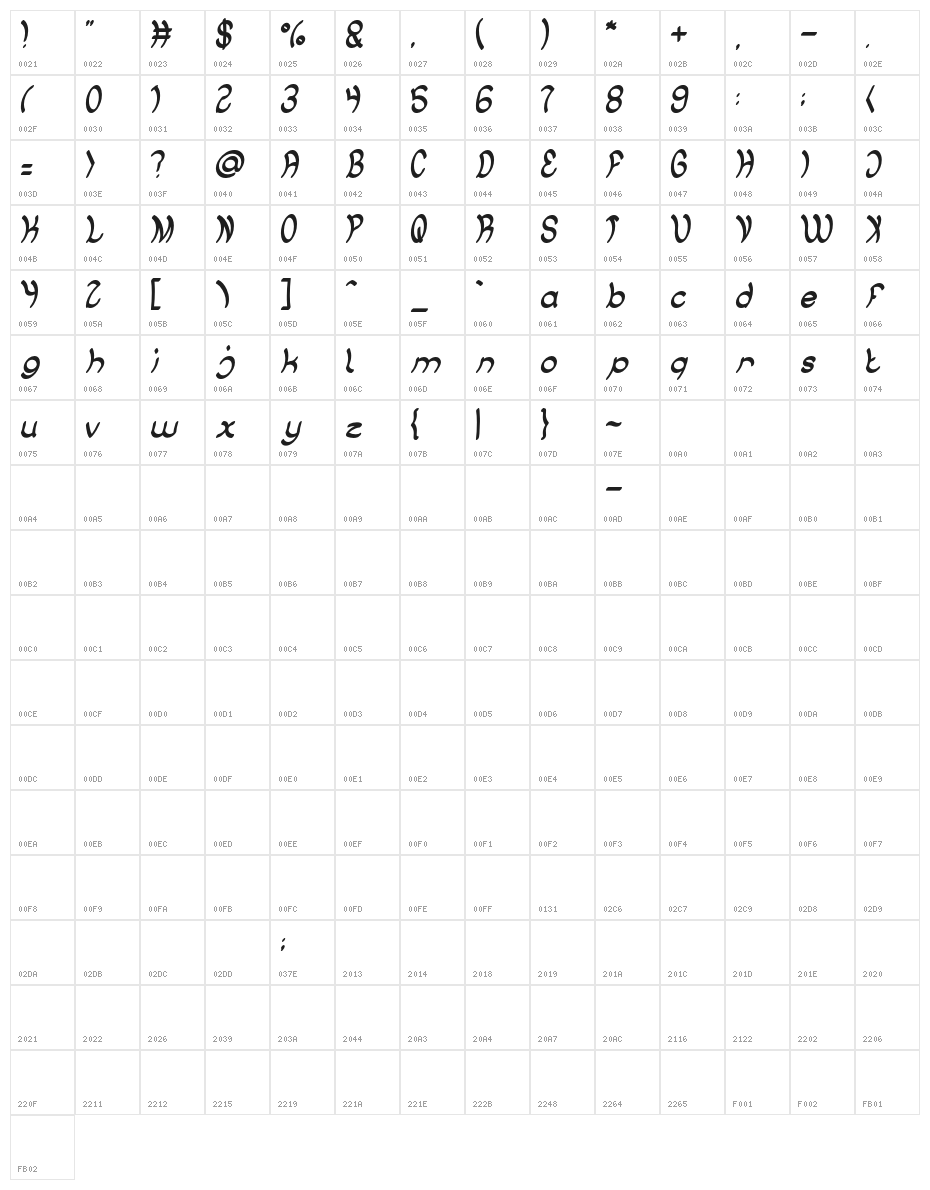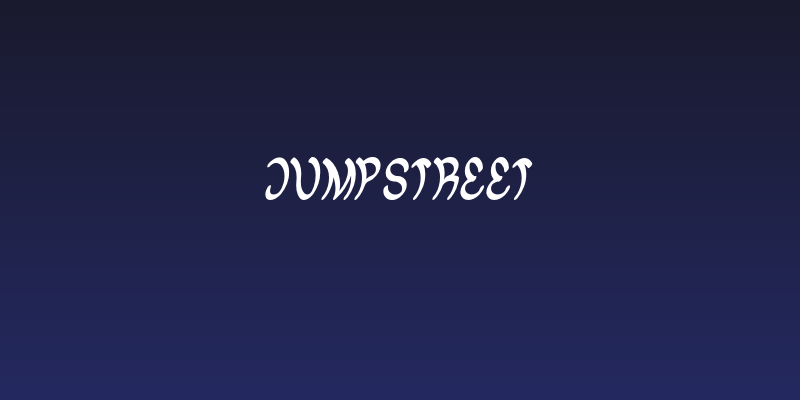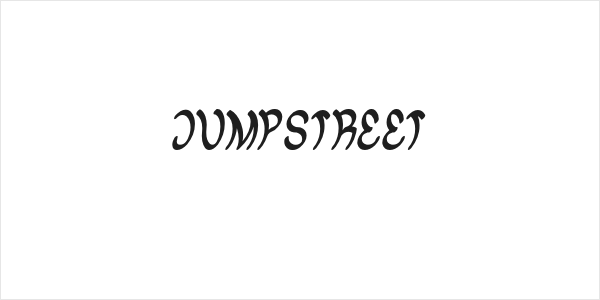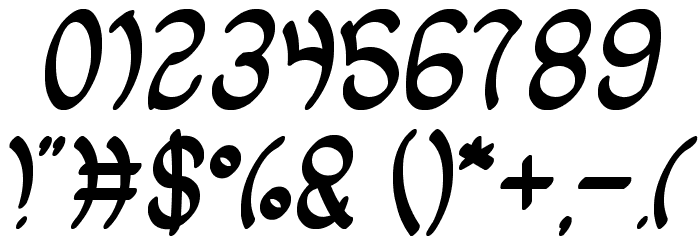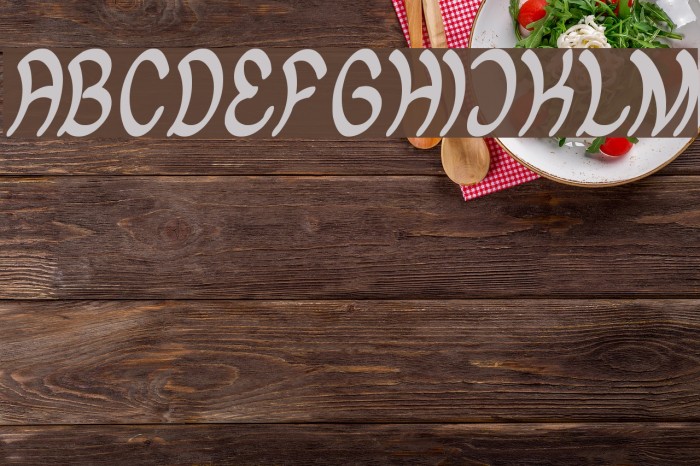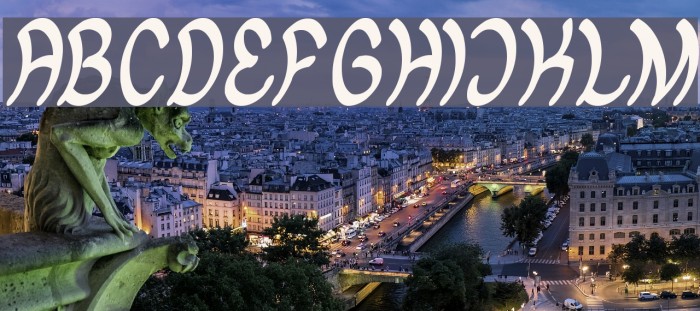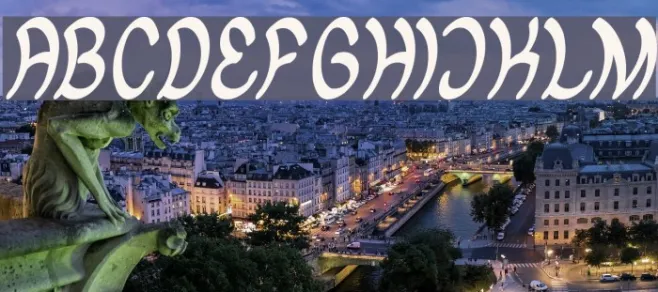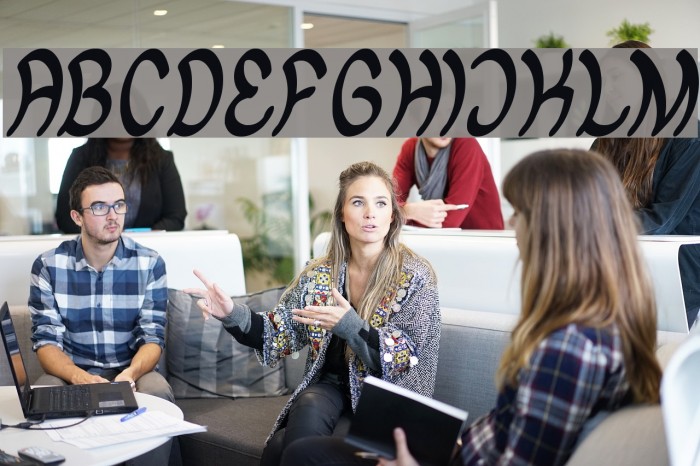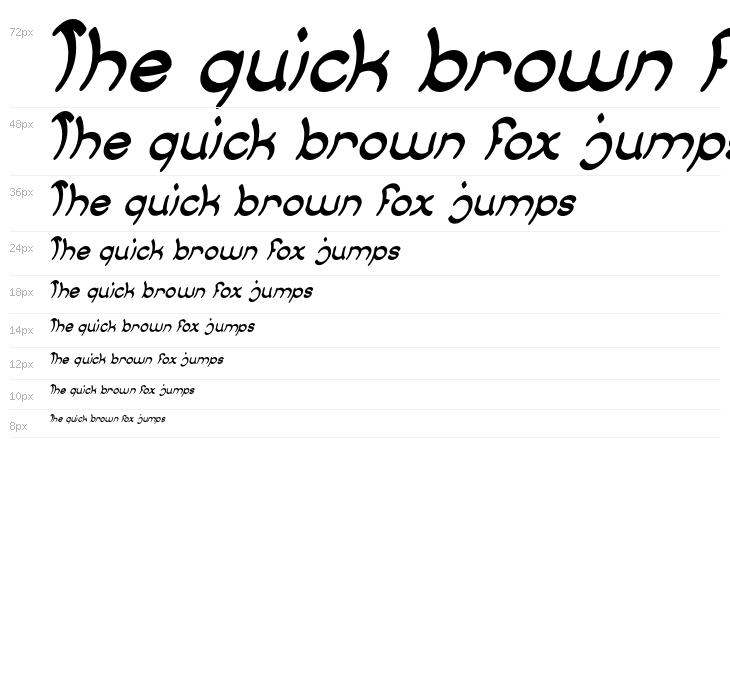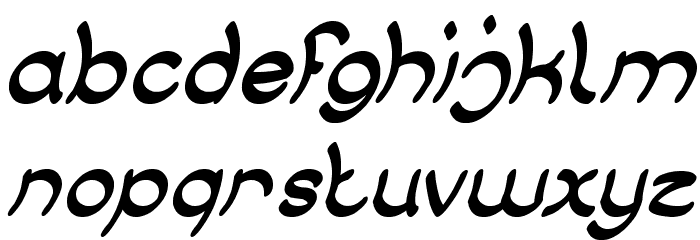
JUMPSTREET Font
JUMPSTREET Description
This font features a bold and dynamic style with a playful, handwritten appearance. The characters are slightly slanted, giving a sense of movement and energy. The strokes are thick and rounded, contributing to a friendly and approachable look. The uppercase and lowercase letters maintain a consistent style, with unique flourishes that add character. Numbers and special characters are designed to match the overall aesthetic, ensuring a cohesive appearance across all text. The font's design is suitable for projects that require a lively and informal touch.
| Proposed Projects | Ideal for children's books, playful branding, event posters, and casual invitations. |